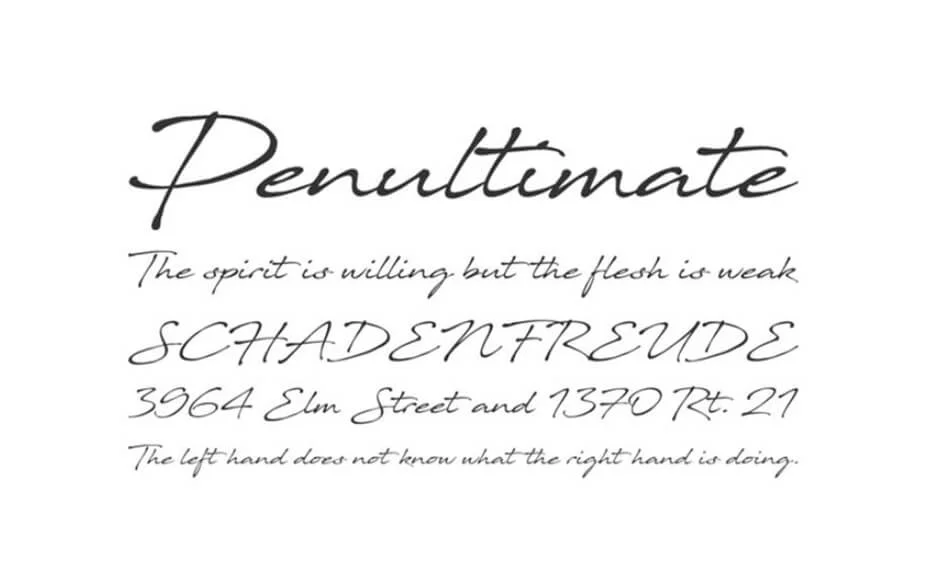
Javacom Font is a cursive handwriting typeface with a casual and peaceful tone. This font would be perfect for branding, wedding designs, cards, and more.
A French font designer Youssef Habchi is known as the primary designer of this. And he shared it for the first time in 2017.
This sweet typeface has a natural look as all the textures are created by the designer with a pen. So, you’ll get a natural flow that only comes from handwriting.
And where it is applied, the viewer feels that the designer has all the texture of the design at hand. So, download it today and enjoy it.
Font Name: | Javacom Font Family |
Style: | Script, Handwritten, Typeface |
Font Designer: | Youssef Habchi |
Designed specifically for projects that require a handwritten touch such as signatures and card printing.
Due to its elegant design, you can easily create special event cards, unique signs, game graphics, stylish card printing, movie posters, fashion magazines, quotes, social media posters, flyers, banners, brand logos, signatures, t-shirt printing, and more.
It has come in a single regular weight with Opentype features. This single style has contained 179 characters along with several language support.